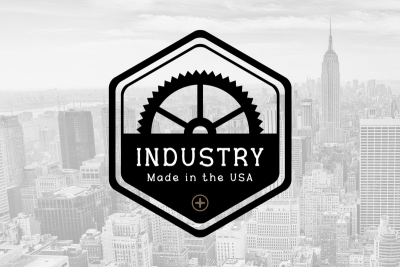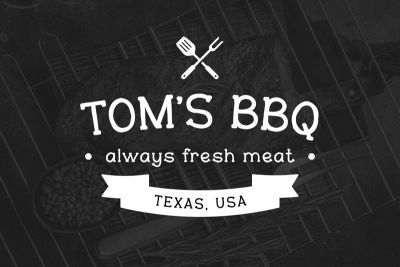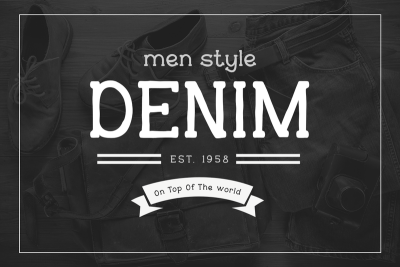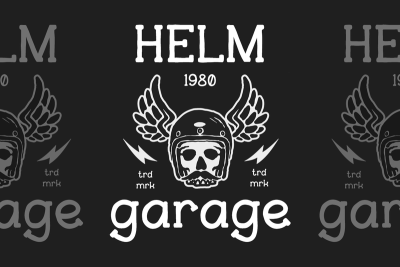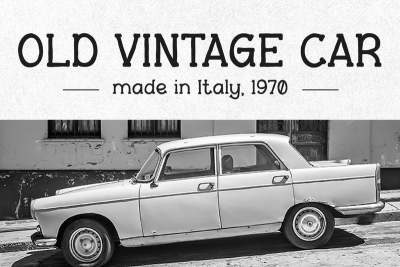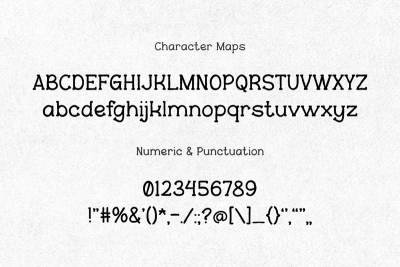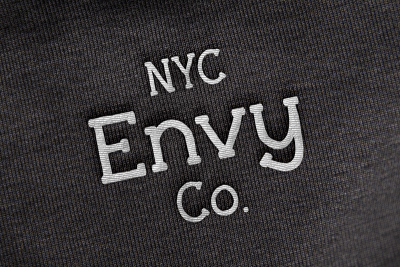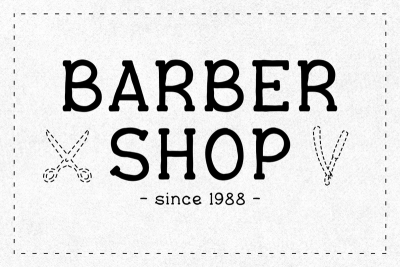
Retro Font Pepper Co is a bold, vibrant typeface inspired by mid-century modern design. It combines retro charm with a modern twist, making it ideal for standout creative projects. With its chunky, rounded shapes and quirky details, this font instantly grabs attention and creates a nostalgic vibe.
The typeface balances smooth curves and geometric precision, delivering both personality and clarity. Each letter feels unique yet remains clean and readable. This versatility ensures it adapts well to logos, posters, headlines, or packaging. Pepper Co thrives when paired with bold colors, gradients, or vintage textures. It works seamlessly across print and digital mediums, making it a go-to choice for various design applications.
Whether you aim to capture the energy of the past or modernize a vintage aesthetic, Retro Font Pepper Co delivers. Its playful yet refined style brings warmth and personality to every project. If you’re searching for a font that combines creativity and nostalgia, this typeface is perfect.
Retro Font Pepper Co Who Is It For?
Retro Font Pepper Co is an excellent choice for designers, marketers, and brands seeking bold, retro-inspired visuals. Itโs particularly effective for audiences that value individuality and creativity.
Social media creators will find this font ideal for crafting engaging Instagram posts, story highlights, or carousel graphics. Its fun and lively style ensures posts stand out and grab attention. Itโs also great for YouTube thumbnails or TikTok visuals, where bold typography is essential.
Graphic designers can use Pepper Co for music festival posters, retro-themed event flyers, or merchandise designs. Its vintage aesthetic captures the excitement and creativity of the mid-century era. Itโs also a great match for businesses like streetwear brands, boutique shops, or indie cafes. Logos, menus, and packaging designed with Pepper Co exude charm and individuality.
For marketers, this typeface adds personality to branding and packaging. Itโs perfect for retro-themed snacks, artisanal goods, or quirky home decor. The fontโs bold, nostalgic vibe connects well with customers who appreciate unique and memorable design.
Ultimately, Retro Font Pepper Co is for anyone who values bold, playful, and nostalgic aesthetics. Designers, brands, and creative professionals can use it to bring personality and energy to their projects. Its mix of retro charm and modern appeal ensures your work stands out in any medium.
Whether youโre crafting a dynamic logo, designing eye-catching social media content, or developing a product package, Pepper Co is a versatile and impactful choice. Itโs more than just a fontโitโs a tool for creativity and expression.